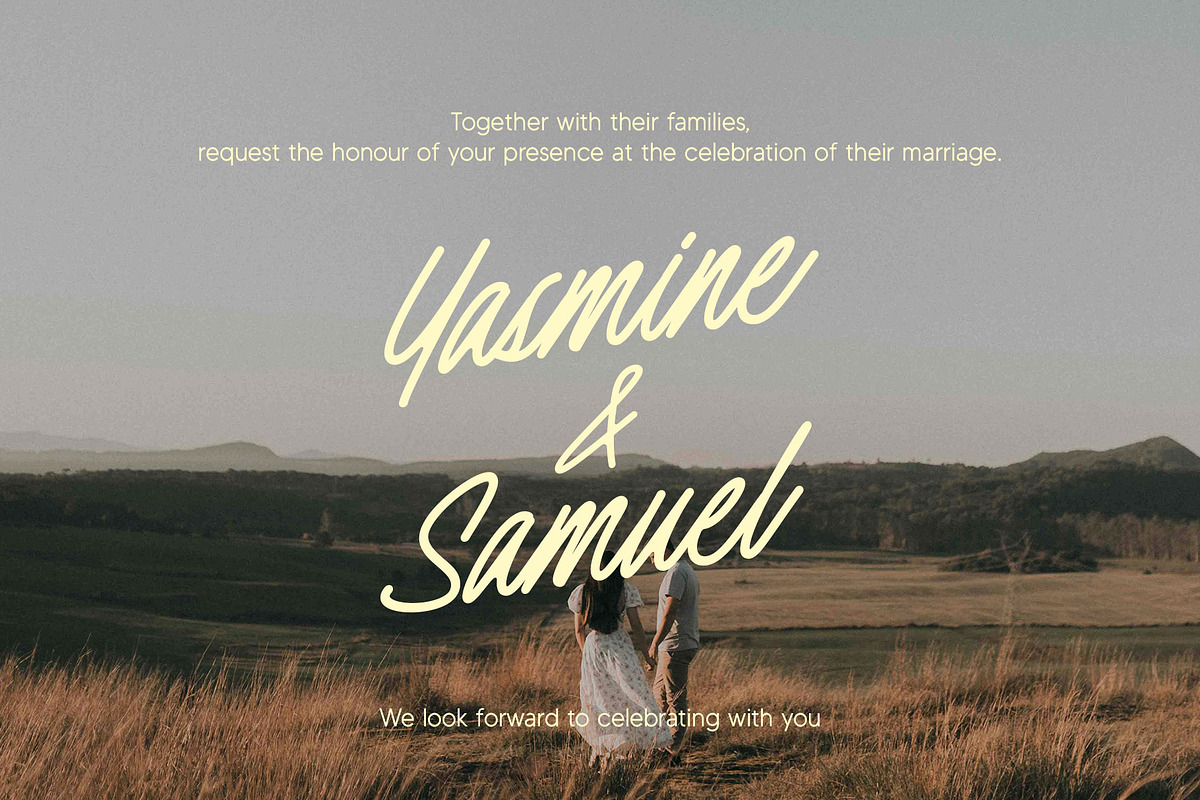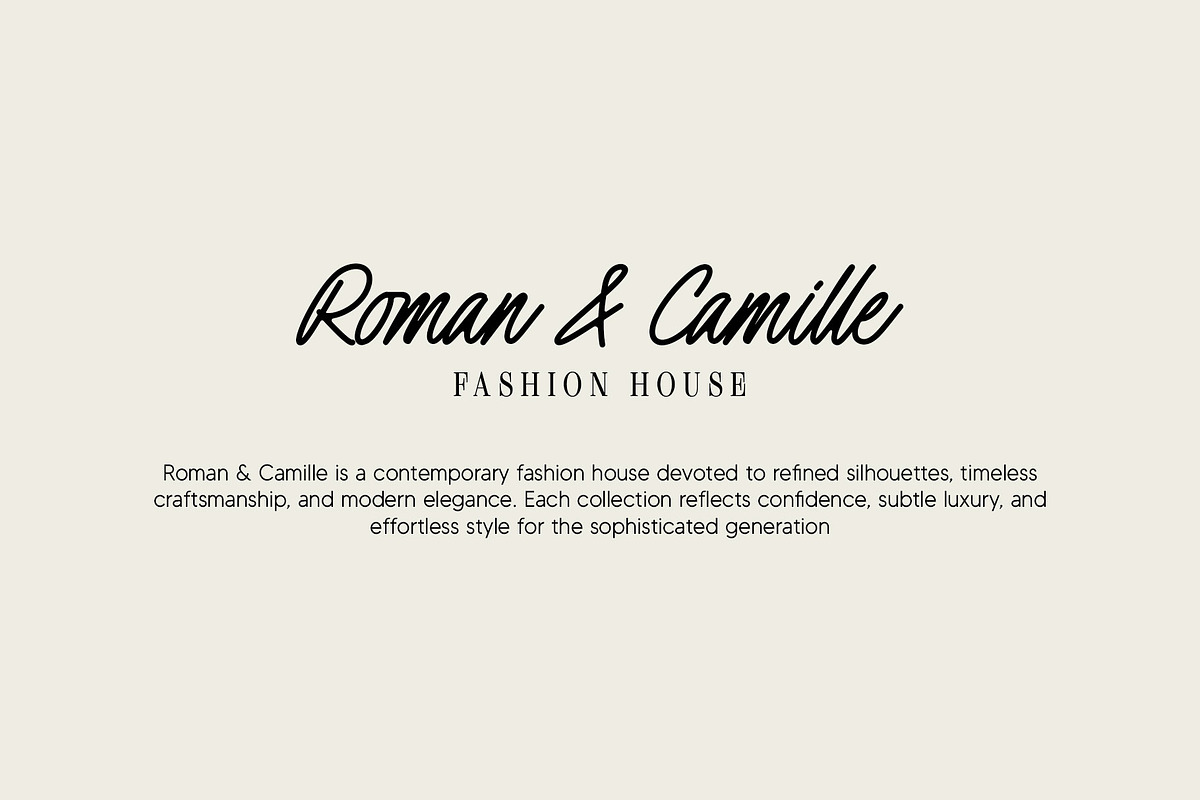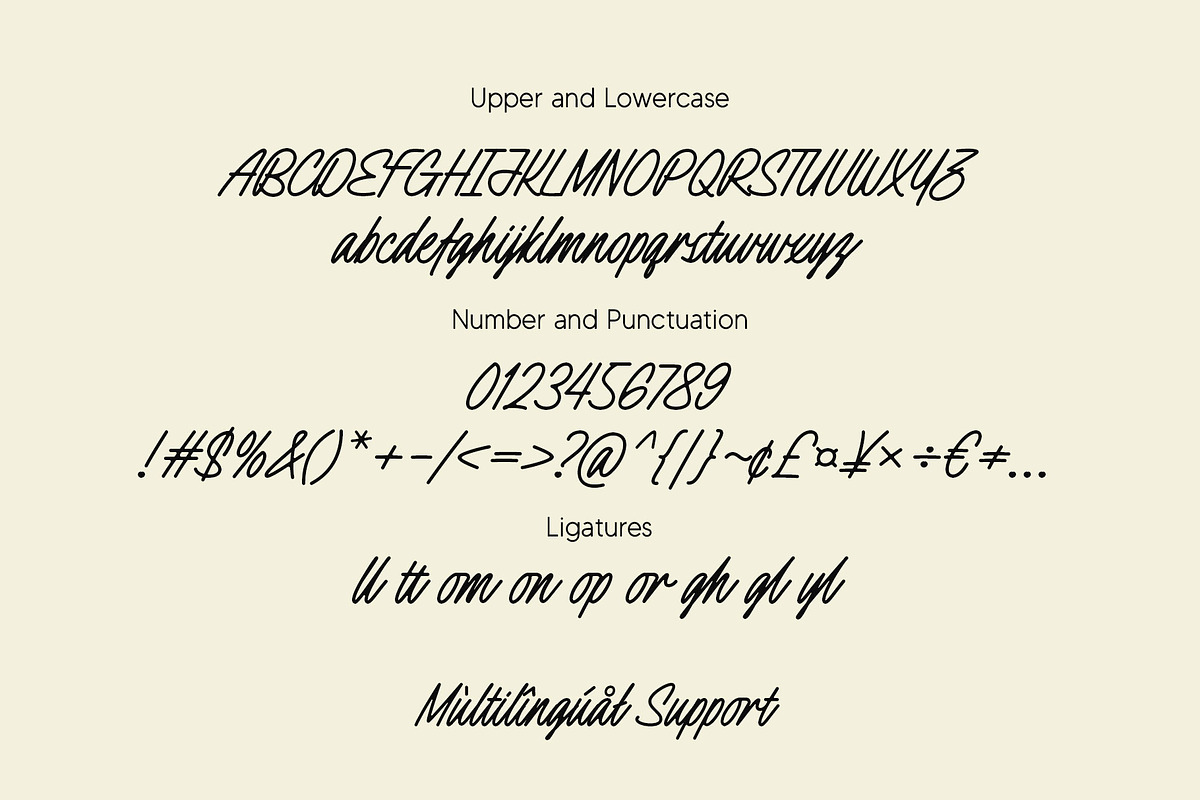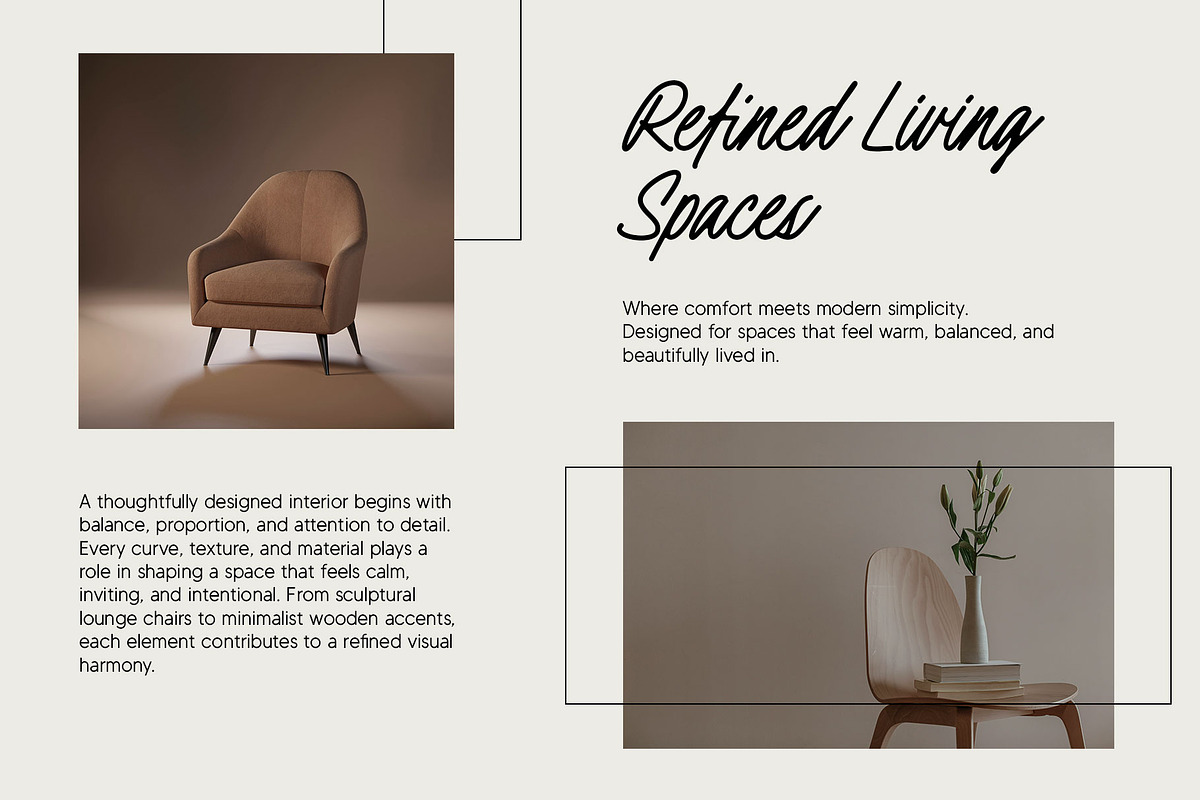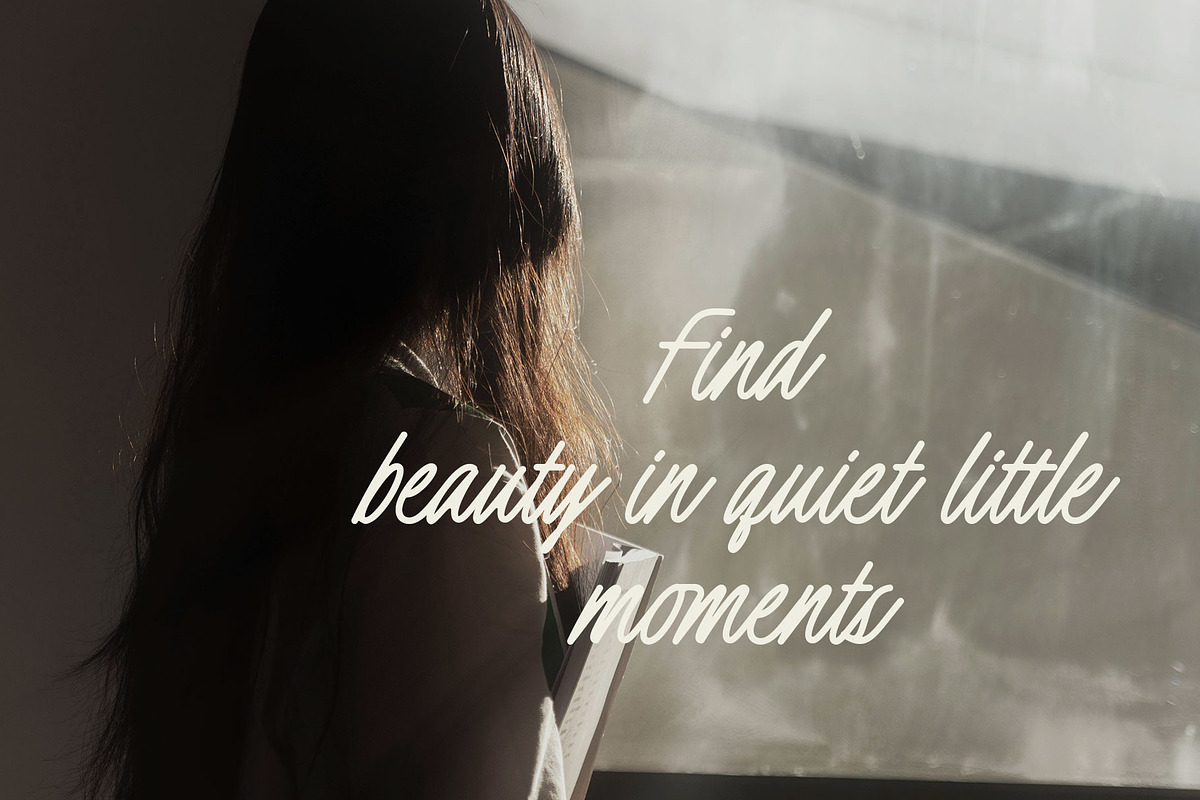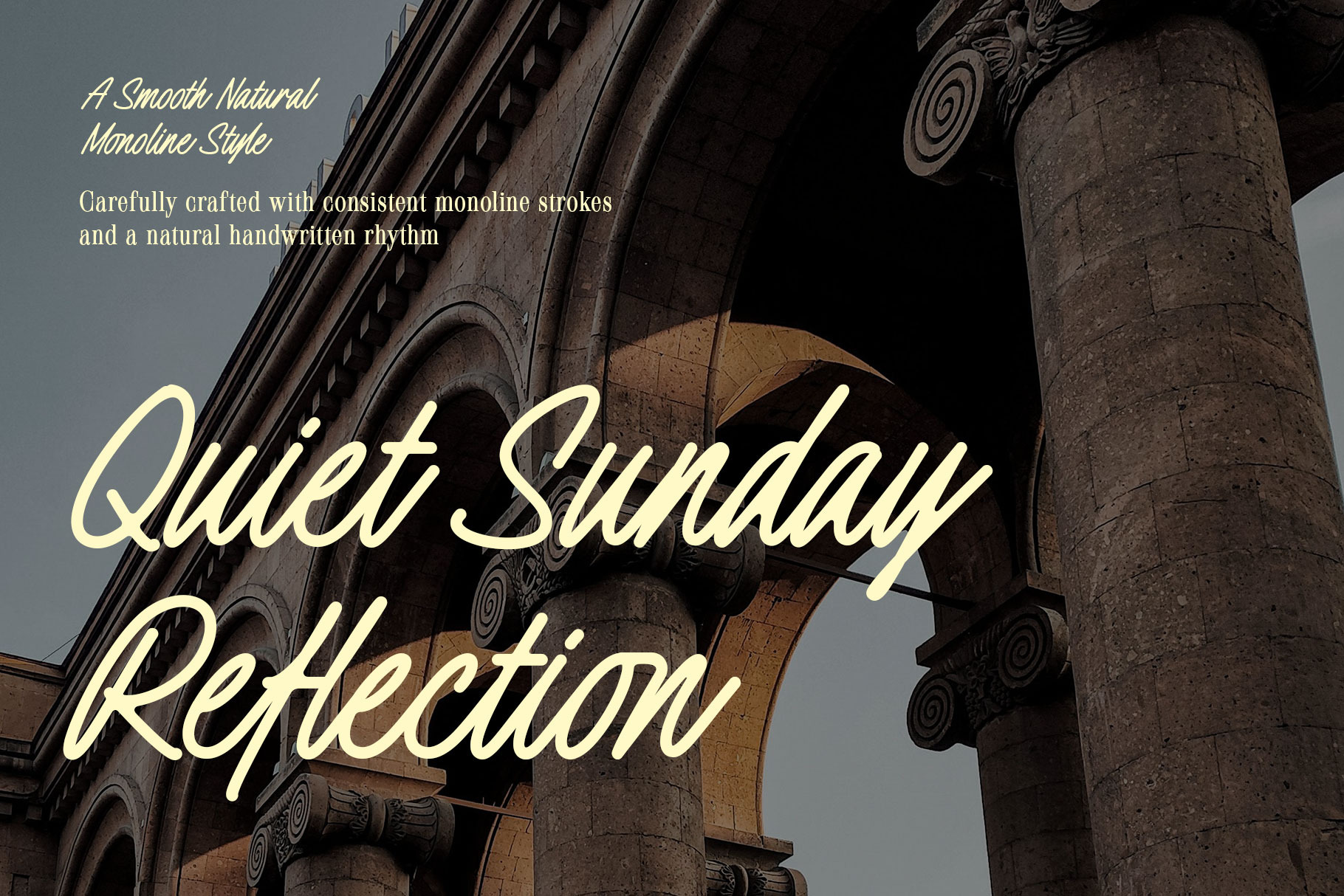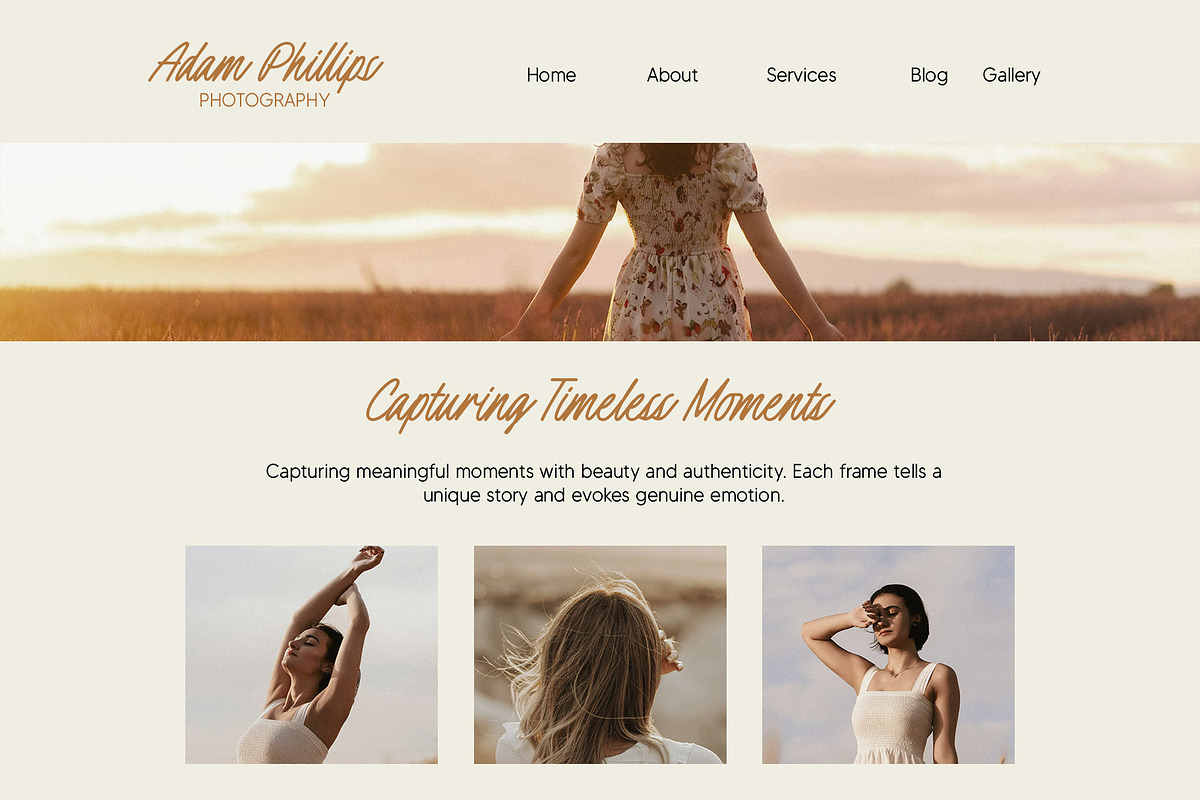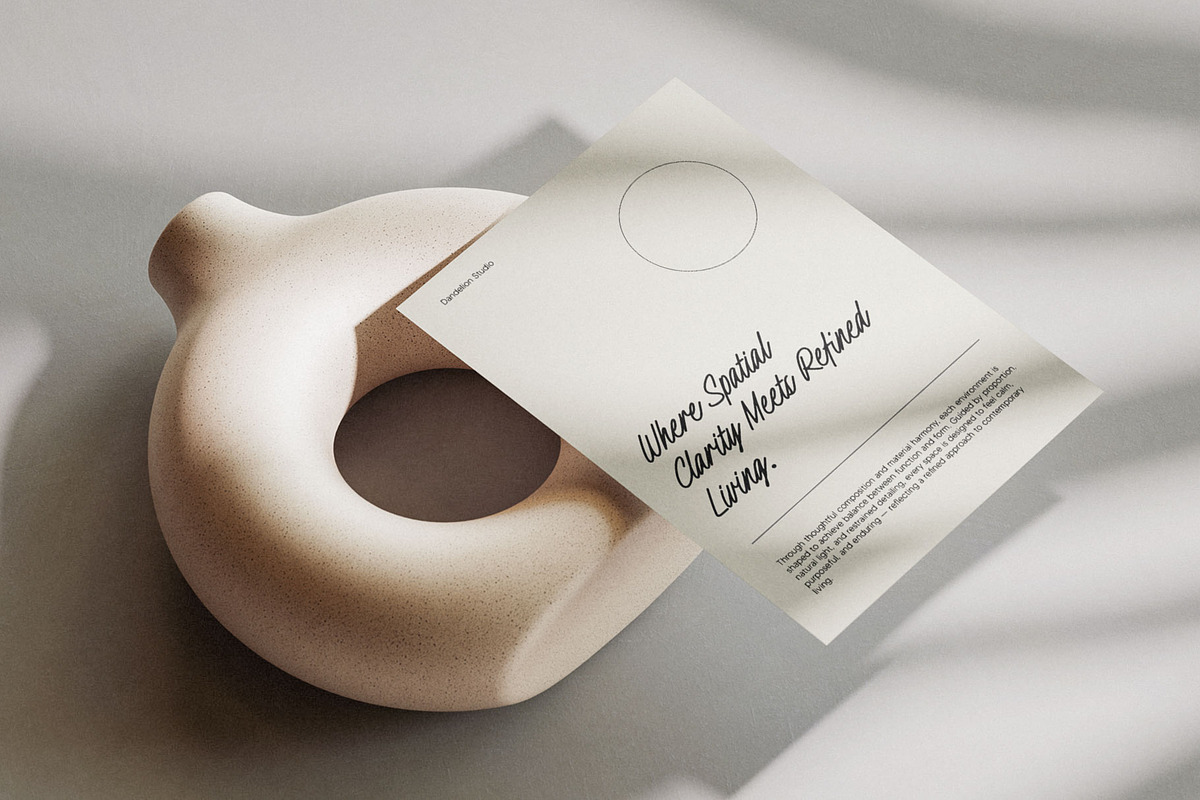
Quiet Sunday Reflection Font
Quiet Sunday Reflection is a smooth monoline script font designed with consistent stroke weight and balanced letterforms. It features a natural handwritten rhythm while maintaining clarity and structure, making it suitable for both display and practical design use. The letter connections are carefully crafted to ensure readability and smooth flow across words. Its clean curves and controlled proportions create a modern yet approachable look that works well in branding, logos, packaging, invitations, social media graphics, and many more. Quiet Sunday Reflection provides a functional signature-style appearance with stable construction and versatile application across various creative projects.